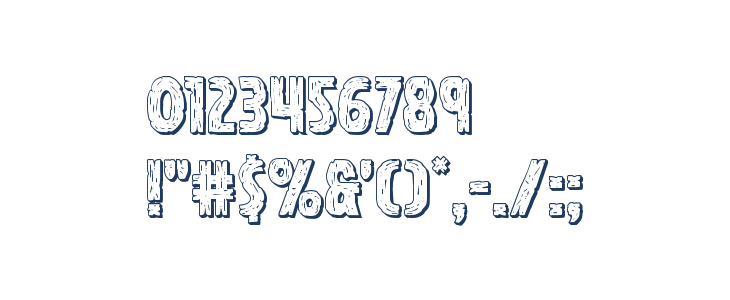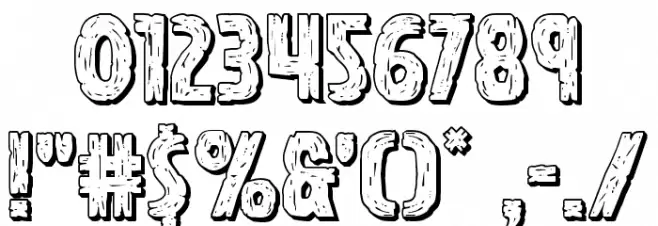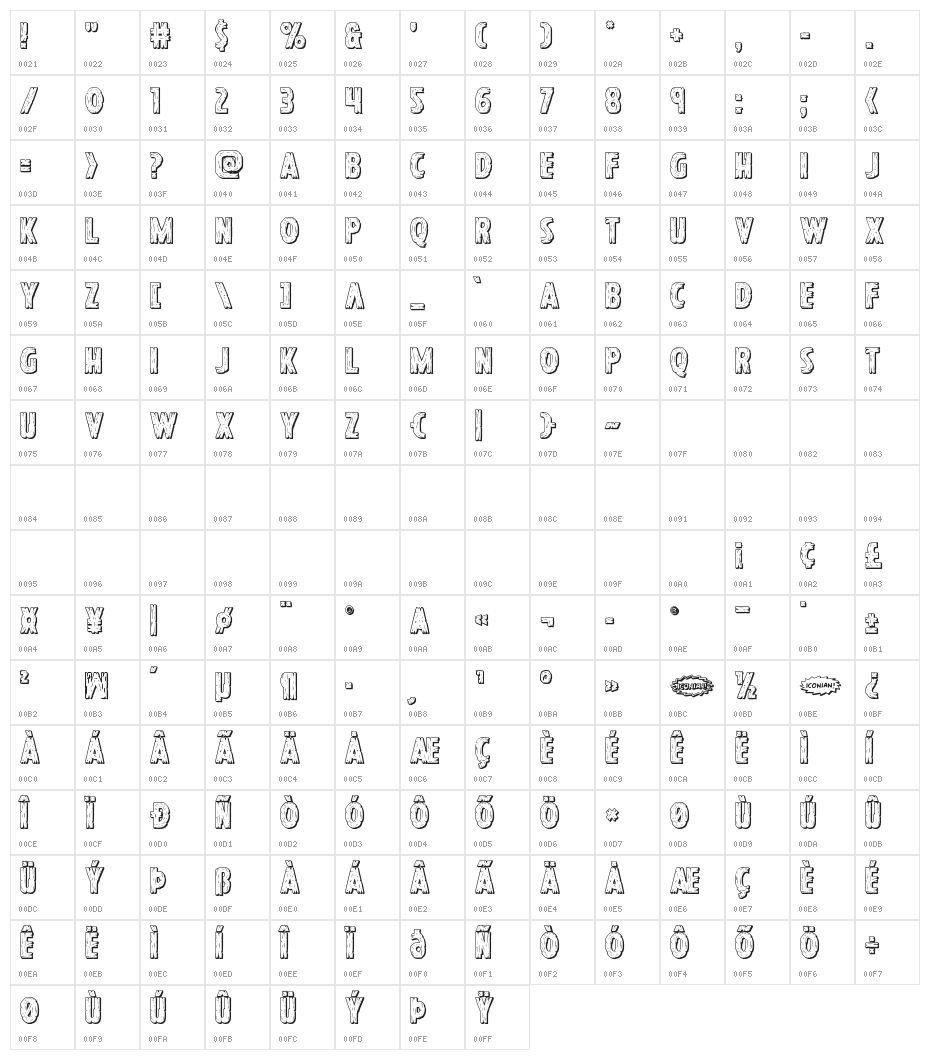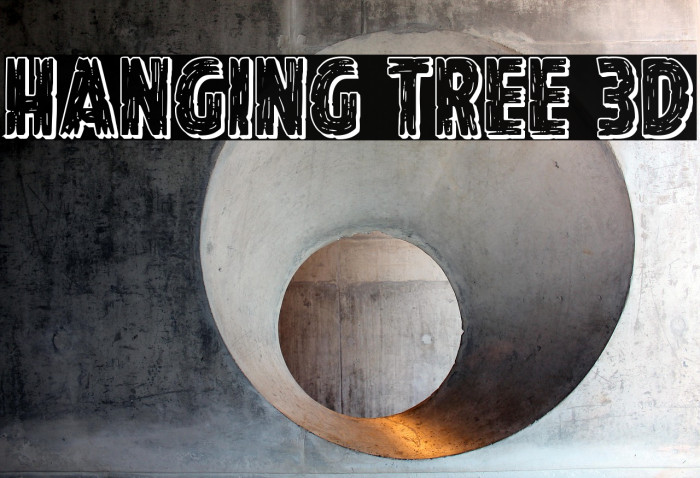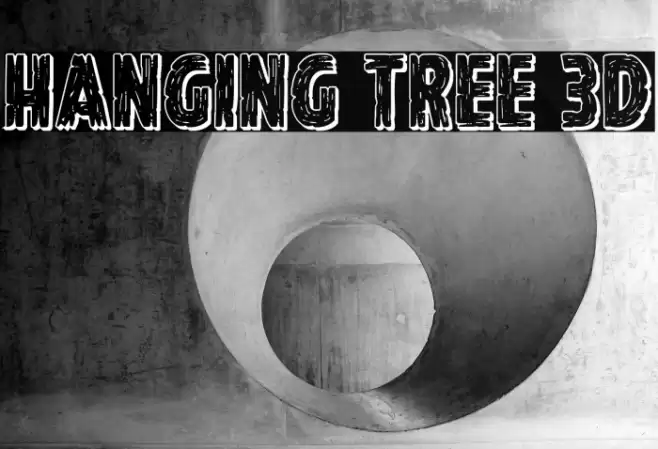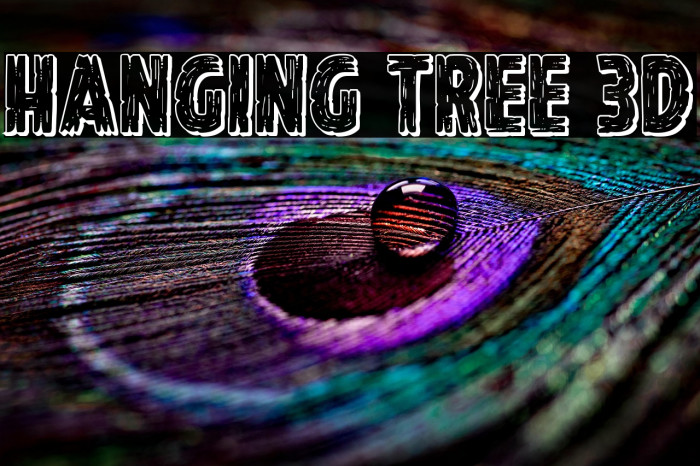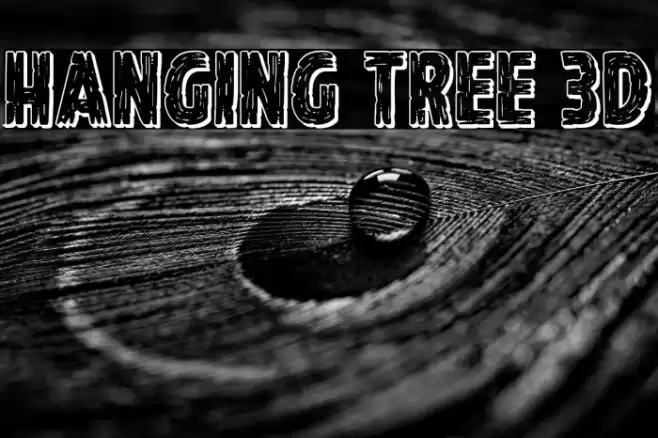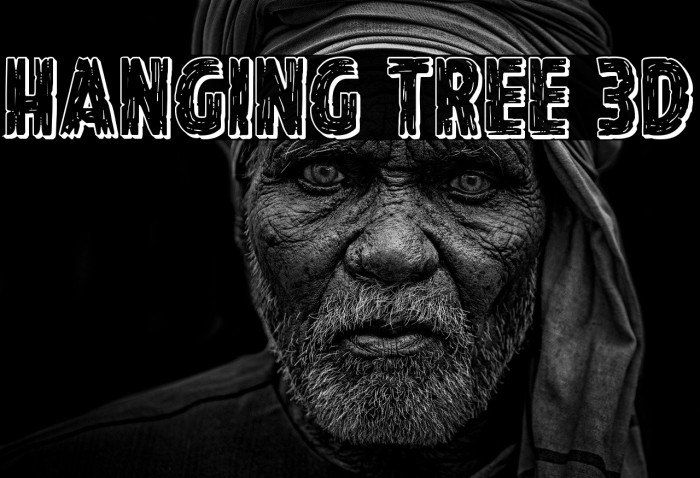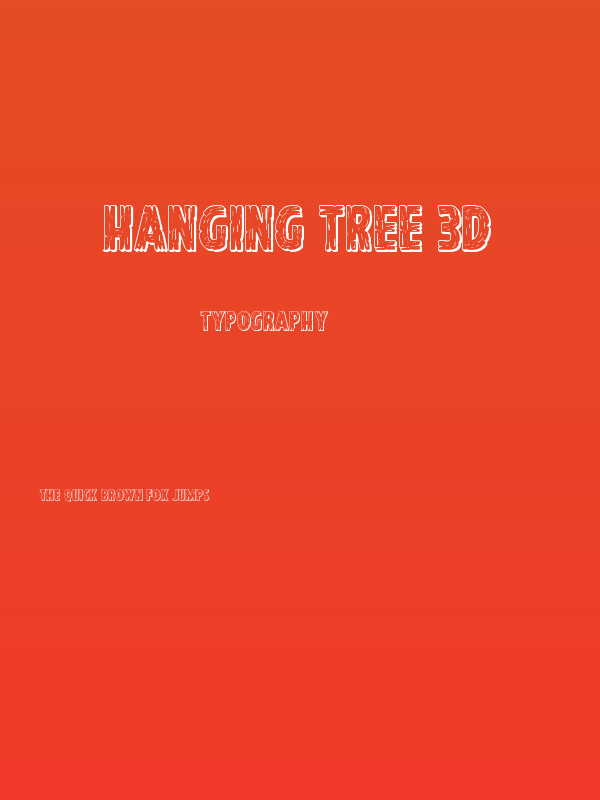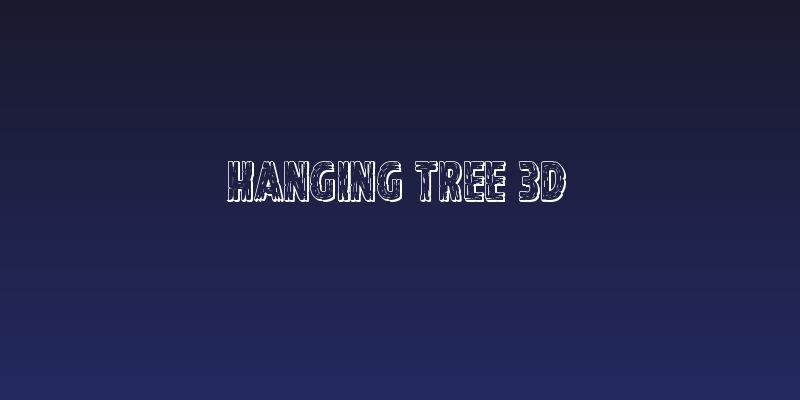
Hanging Tree 3D Font
Hanging Tree 3D Description
This font features a rugged, hand-drawn style with a 3D effect that gives it a bold and dynamic appearance. The characters are outlined with a rough, sketch-like texture, adding a sense of depth and dimension. The uppercase and lowercase letters maintain a consistent style, with a playful and slightly chaotic look. The numbers and special characters follow the same design, ensuring uniformity across all glyphs. This font's unique aesthetic makes it stand out, offering a creative and artistic vibe.